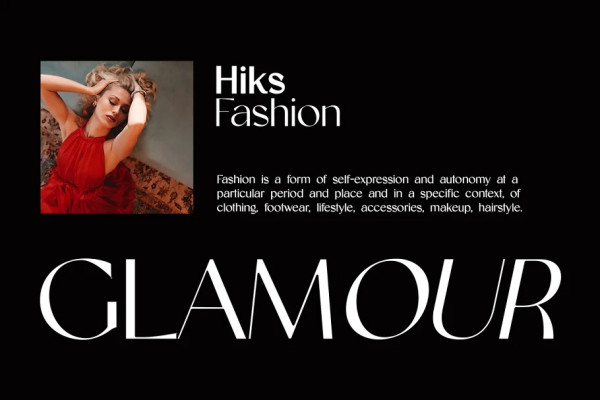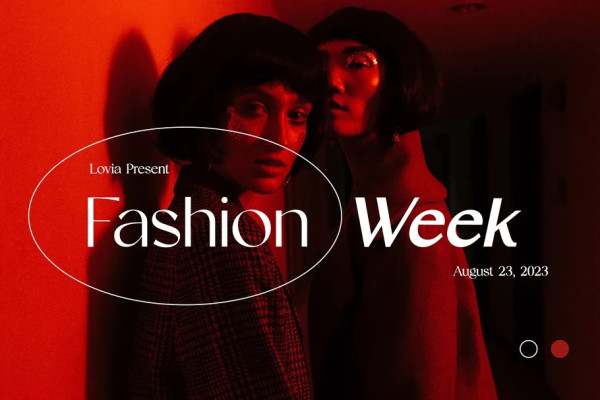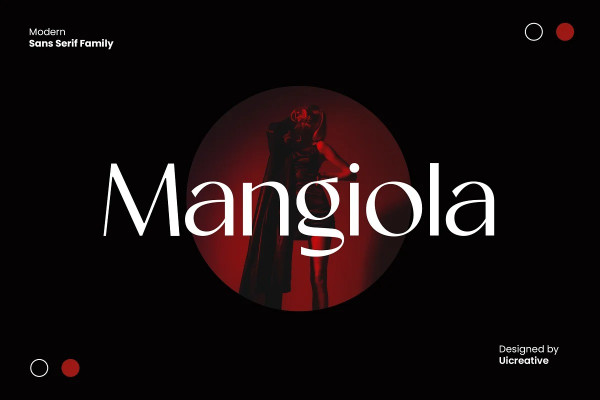
Mangiola Font
Mangiola Font – Modern Sans Serif font. It feels luxurious, elegant and modern. This font is ideally suited for many types of projects, such as signatures, stationery, logos, weddings, typography quotes, magazine or book covers, website titles, clothing, branding, packaging design, etc. In addition, fashion-related editorial or label design embodies both masculine and feminine qualities.